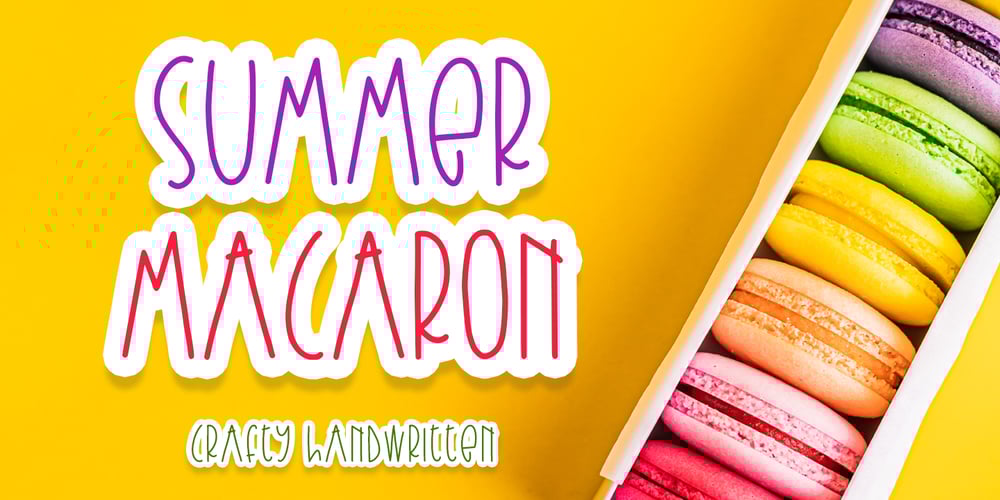
Summer Macaron Font Family was designed by Abo Daniel and published by Abo Daniel. Summer Macaron contains 1 styles and family package options. introducingSUMMER MACARON-crafty handwritten sans serif-it is a simple, natural, and fun handwritten font.This is an uppercase font designed for crafters.It is great for branding, packaging, quotes, t-shirt design, card, banners, cutting, silhouettes, and anything of craft projects. It looks so natural.Features:- Uppercase- Number & punctuation- Multilingual- PUA encodedI hope you love it.Welcome summerregards,Abo Daniel Studio